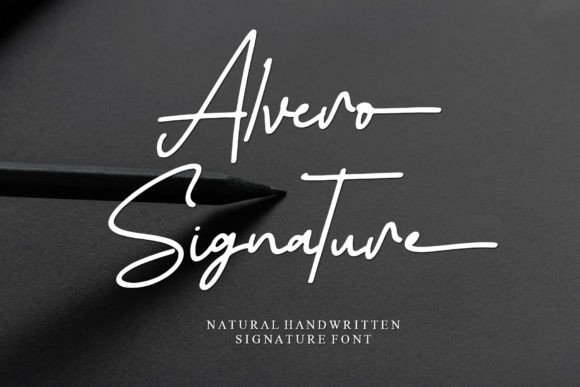
Step into the world of elegance and sophistication with Alvero Signature Font, a remarkable creation from the esteemed Letterafa Studio. This captivating script font exudes charm and grace, enveloping your words in a timeless allure that speaks volumes. Alvero Signature is no ordinary font; it's an artistic masterpiece that breathes life into your designs.
With its inherent beauty and versatility, Alvero Signature effortlessly adapts to a myriad of creative endeavors. Its meticulously crafted characters dance across your screen, lending an air of sophistication to logos, branding, invitations, and stationery. Unleash your creativity in the realm of wedding designs, enchanting social media posts, or any project that yearns for a touch of elegance.
This font isn't just a collection of letters; it's an evocative symphony that stirs emotions and captivates hearts. Experience the allure of Alvero Signature and let your designs sing. Its graceful strokes, delicate swashes, and enchanting glyphs weave a spellbinding narrative that will leave a lasting impression.
Embrace the magic of Alvero Signature, and watch as your designs transform into breathtaking masterpieces. This font isn't merely a tool; it's an extension of your artistic vision, allowing you to express your unique style with unparalleled elegance.